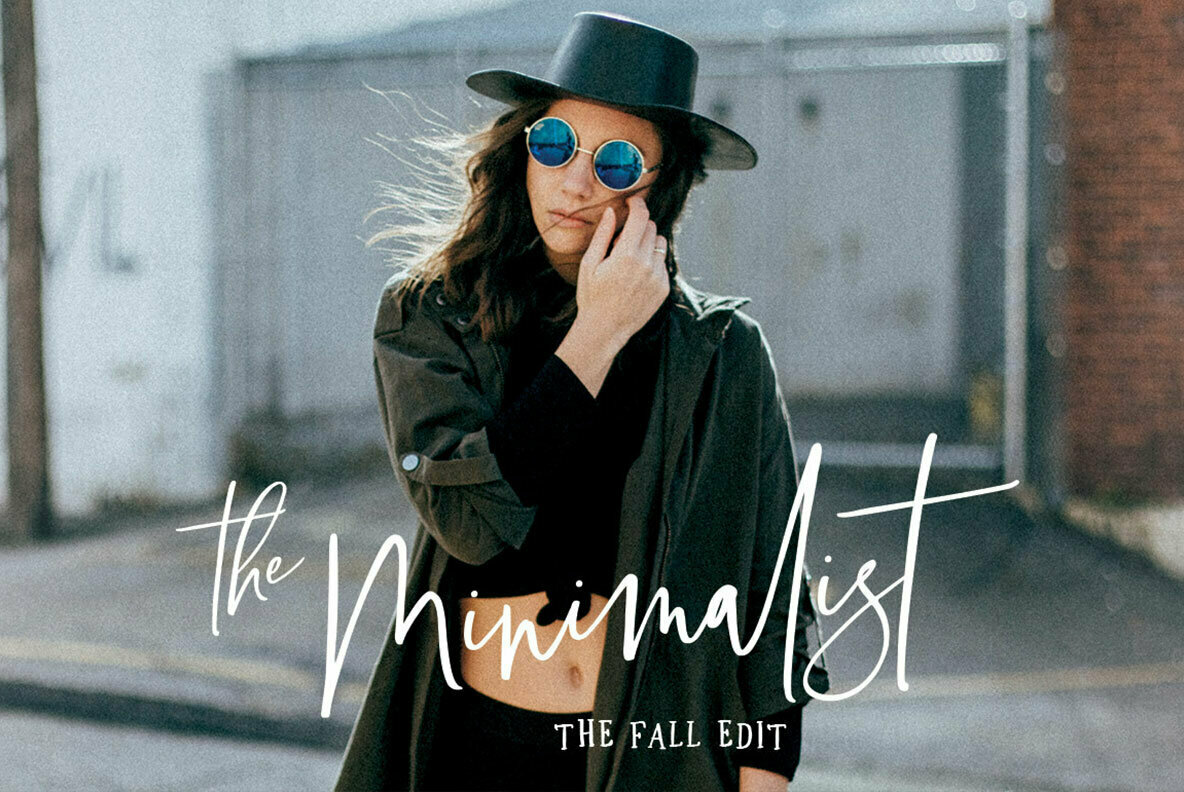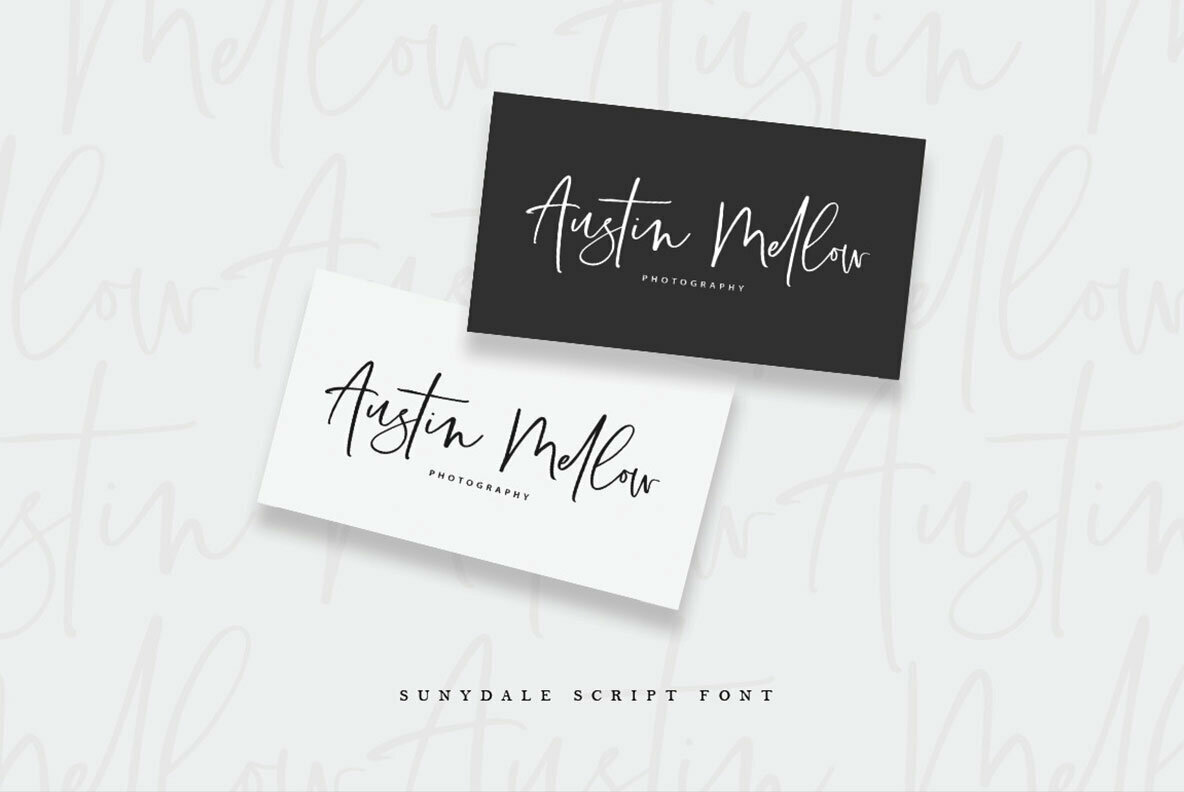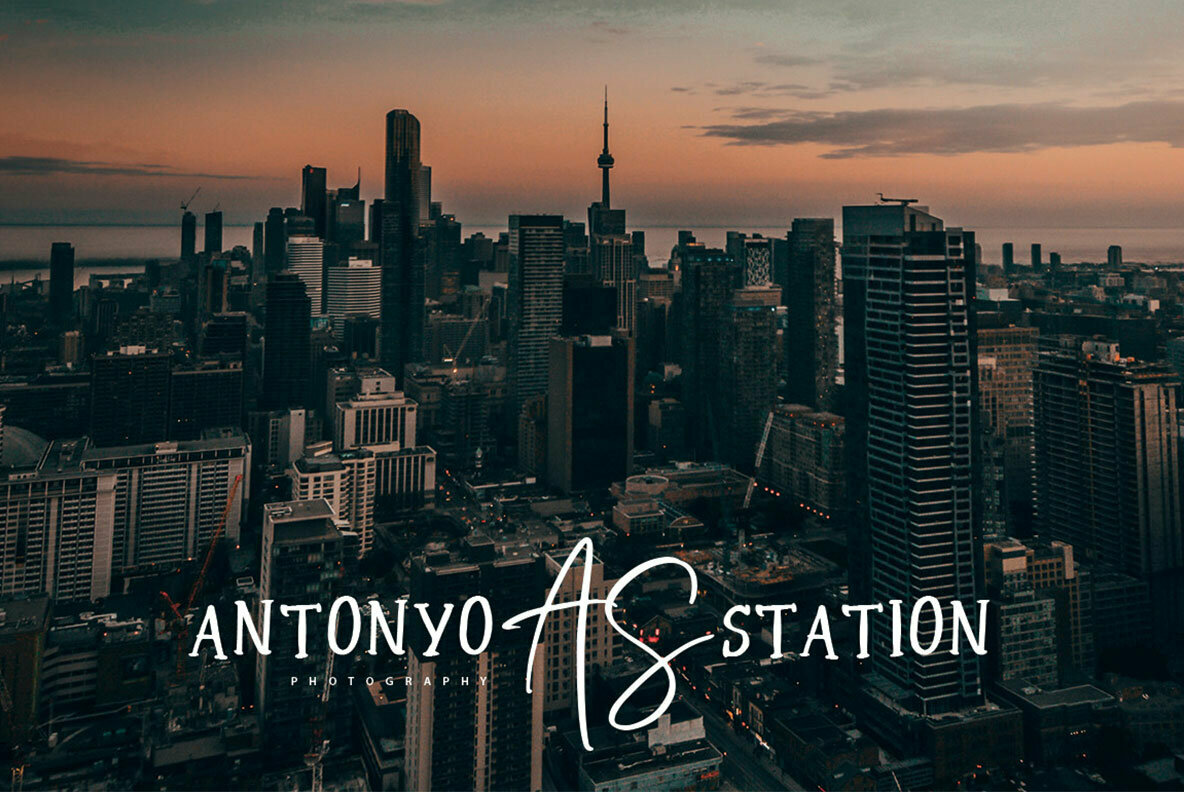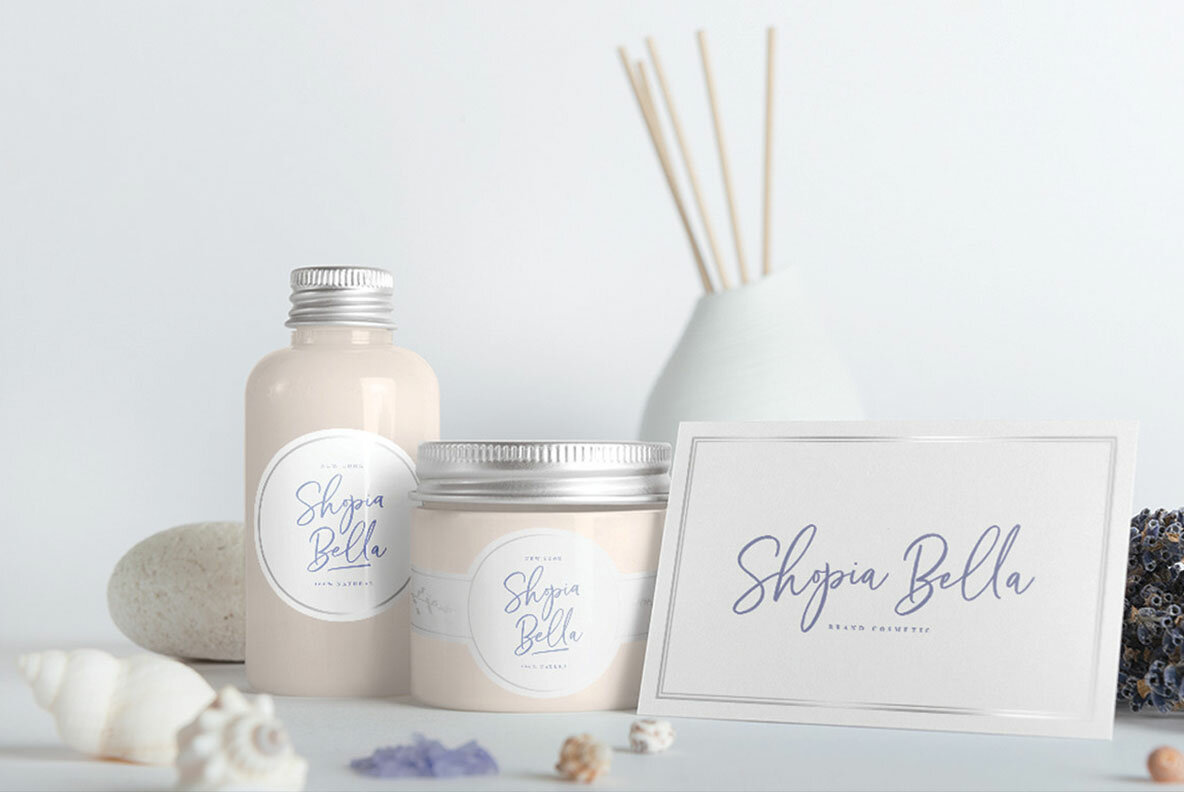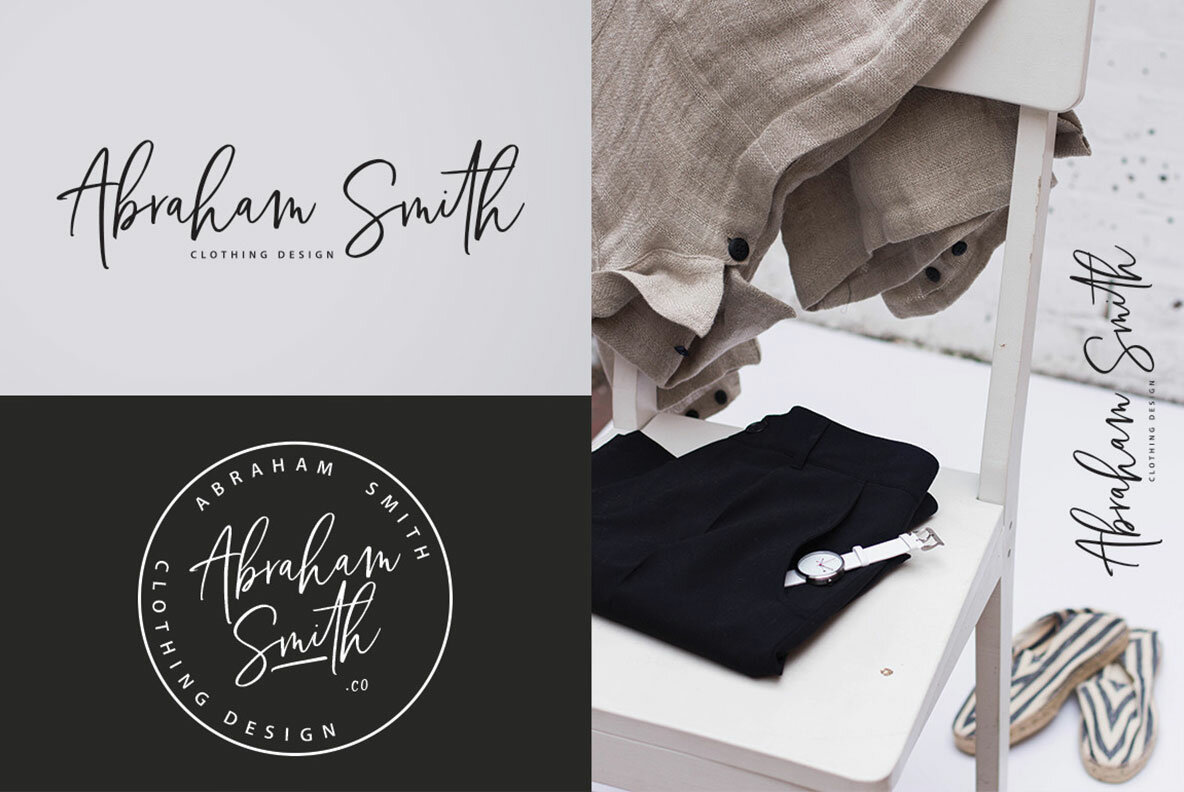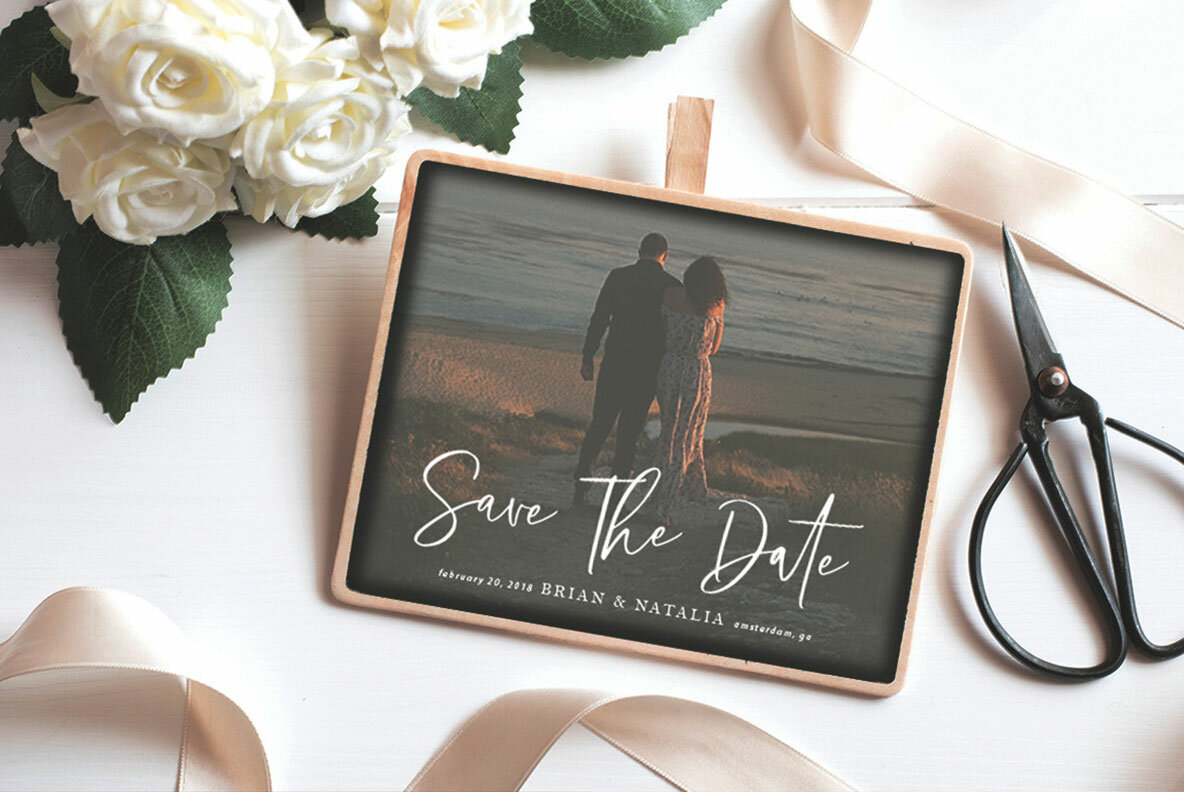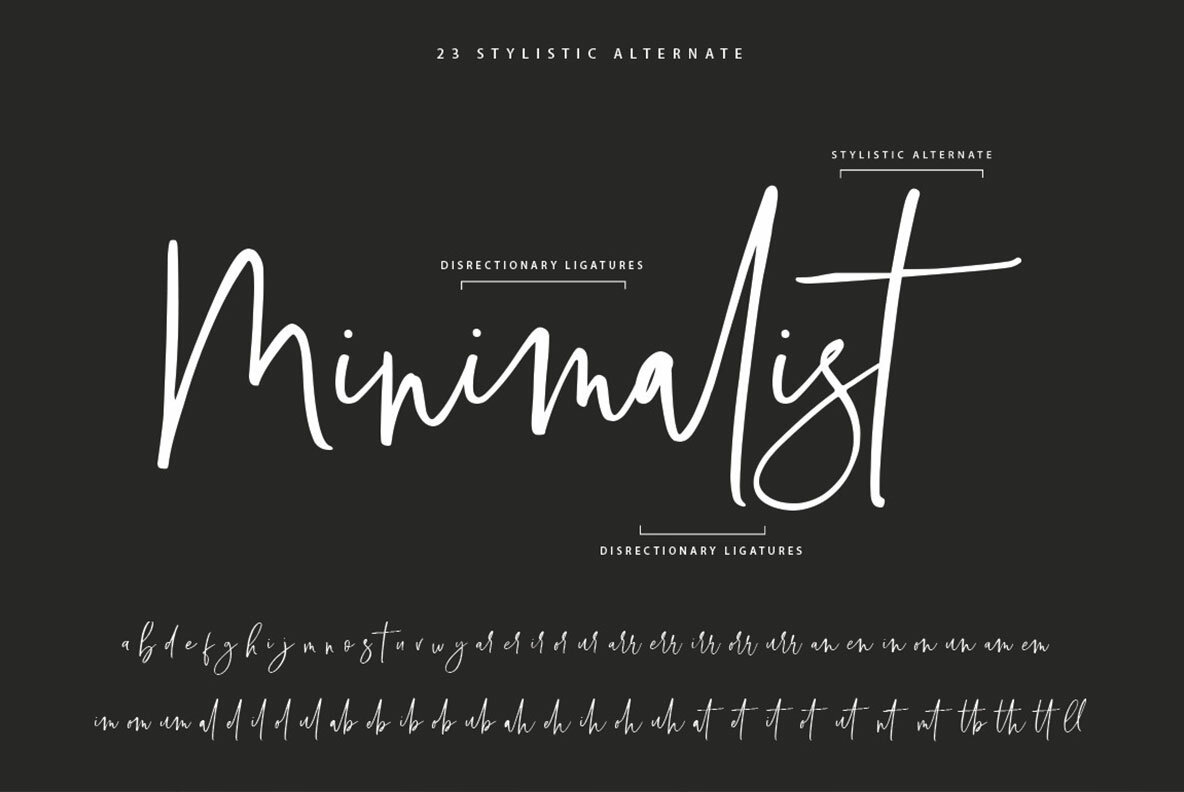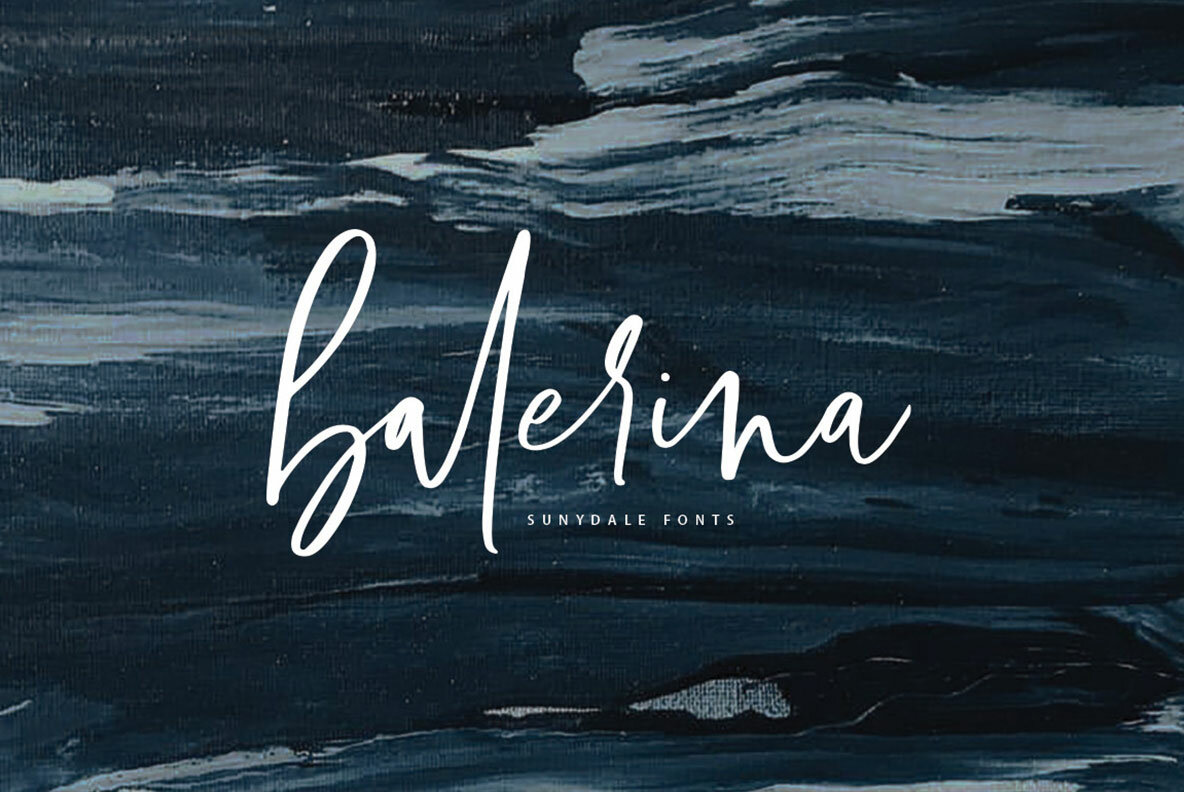
Sunydale Font
Sunydale Font Duo! classy, contemporary pair of script and serif fonts. It is free-flowing, feminine, fashionable and friendly. Sunydale is perfect for fashion, e-commerce brands, trend blogs, or any business that wants to appear classy and chic.
Sunydale Includes:
- Uppercase, Lowercase, Numeral, Punctuation & Symbol
- Stylistic alternates
- Discretionary ligatures
- 2 Swash (numeral keys)